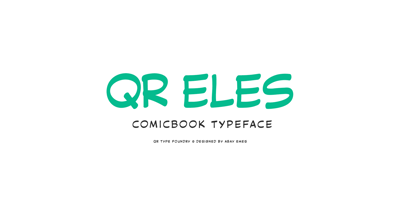
QR Eles Font Family was designed by Abay Emes and published by QR Type. QR Eles contains 6 styles and family package options. All uppercase typeface for comic book lettering. Supports extended Cyrillic and Latin characters.It has two stylistic sets: Alternates for Cyrillic L and D. Alternates for languages with dotless ı and i with dot (like Turkish) “Eles” translated from Qazaq as “Ghost”. Designed by Abay Emes.